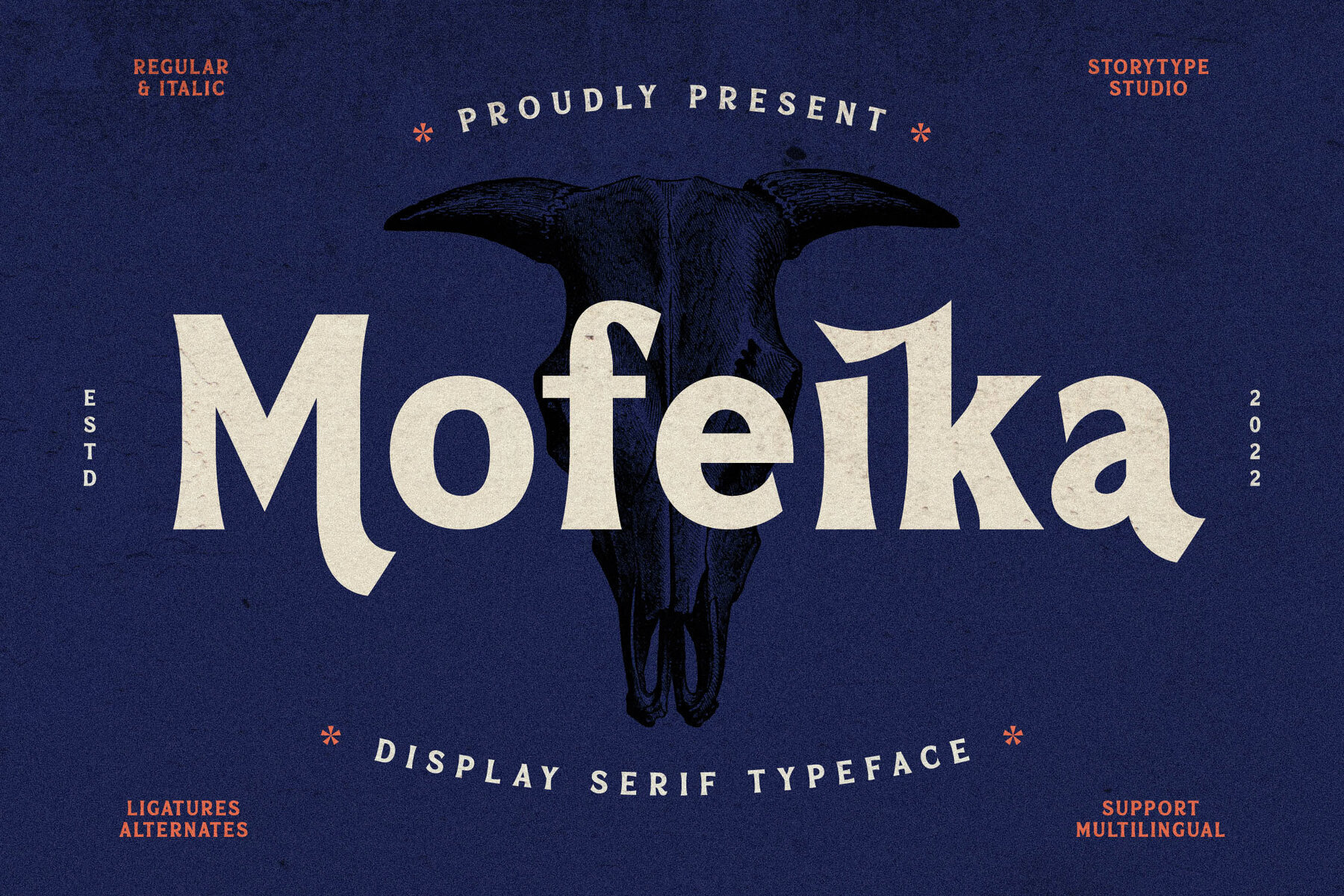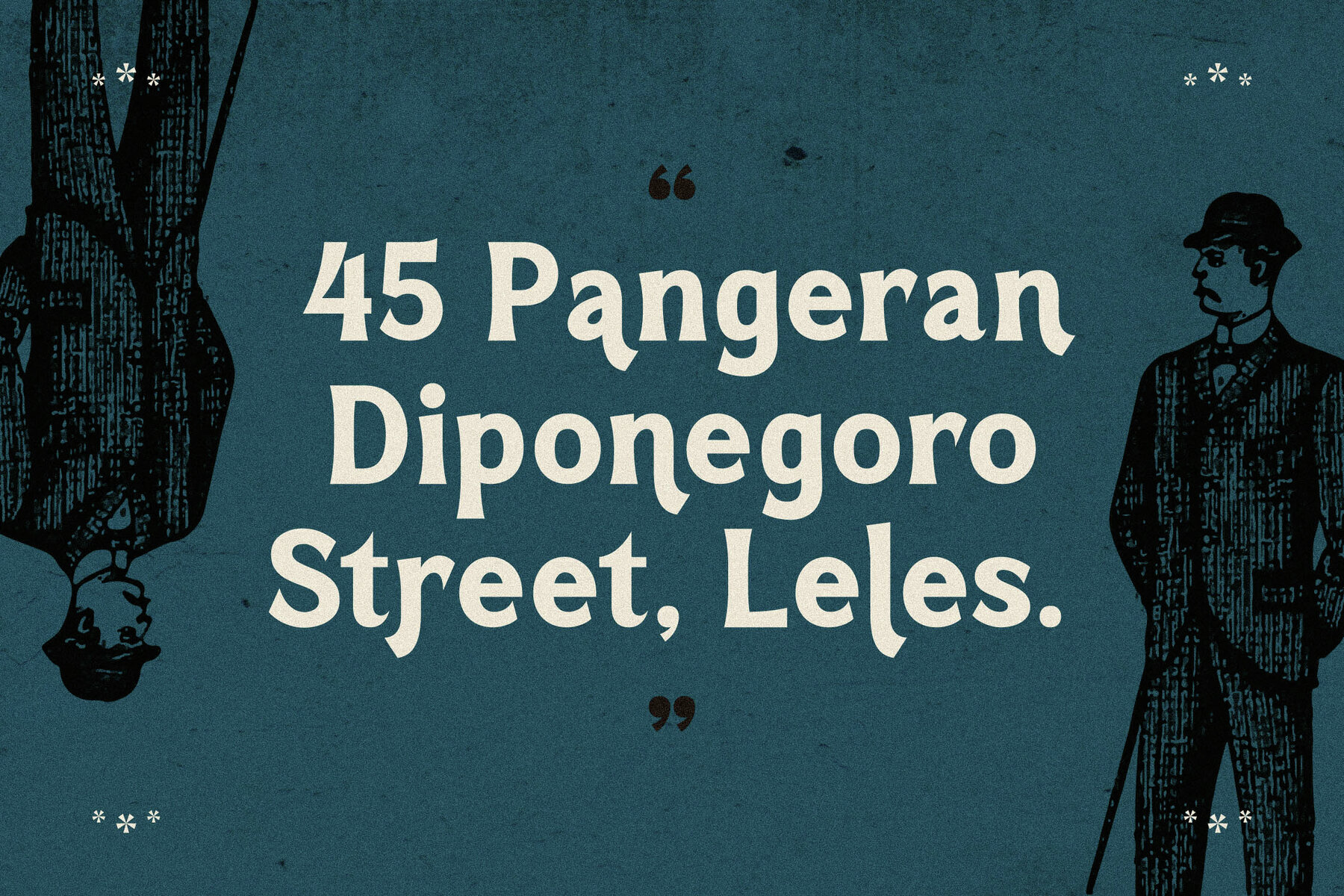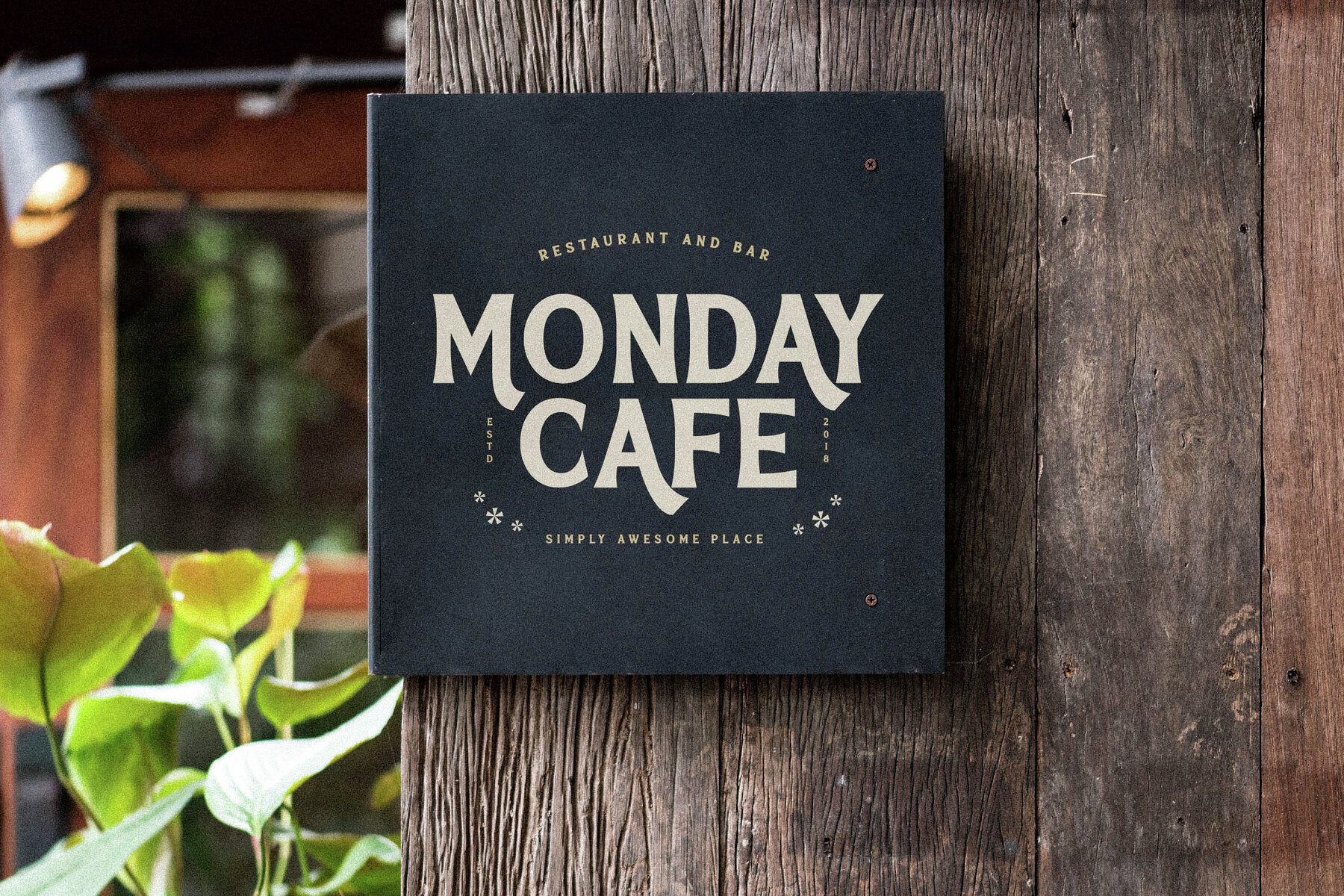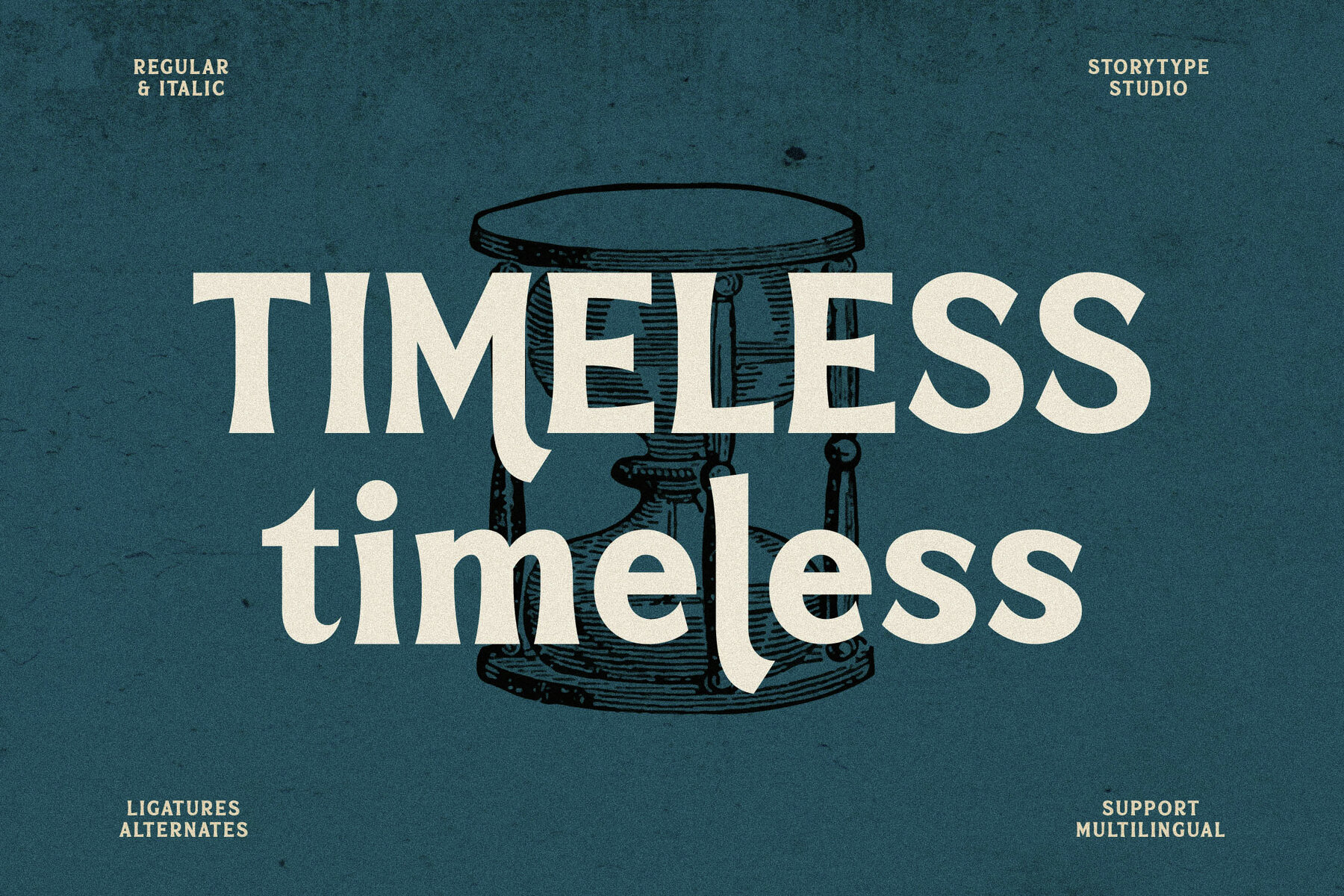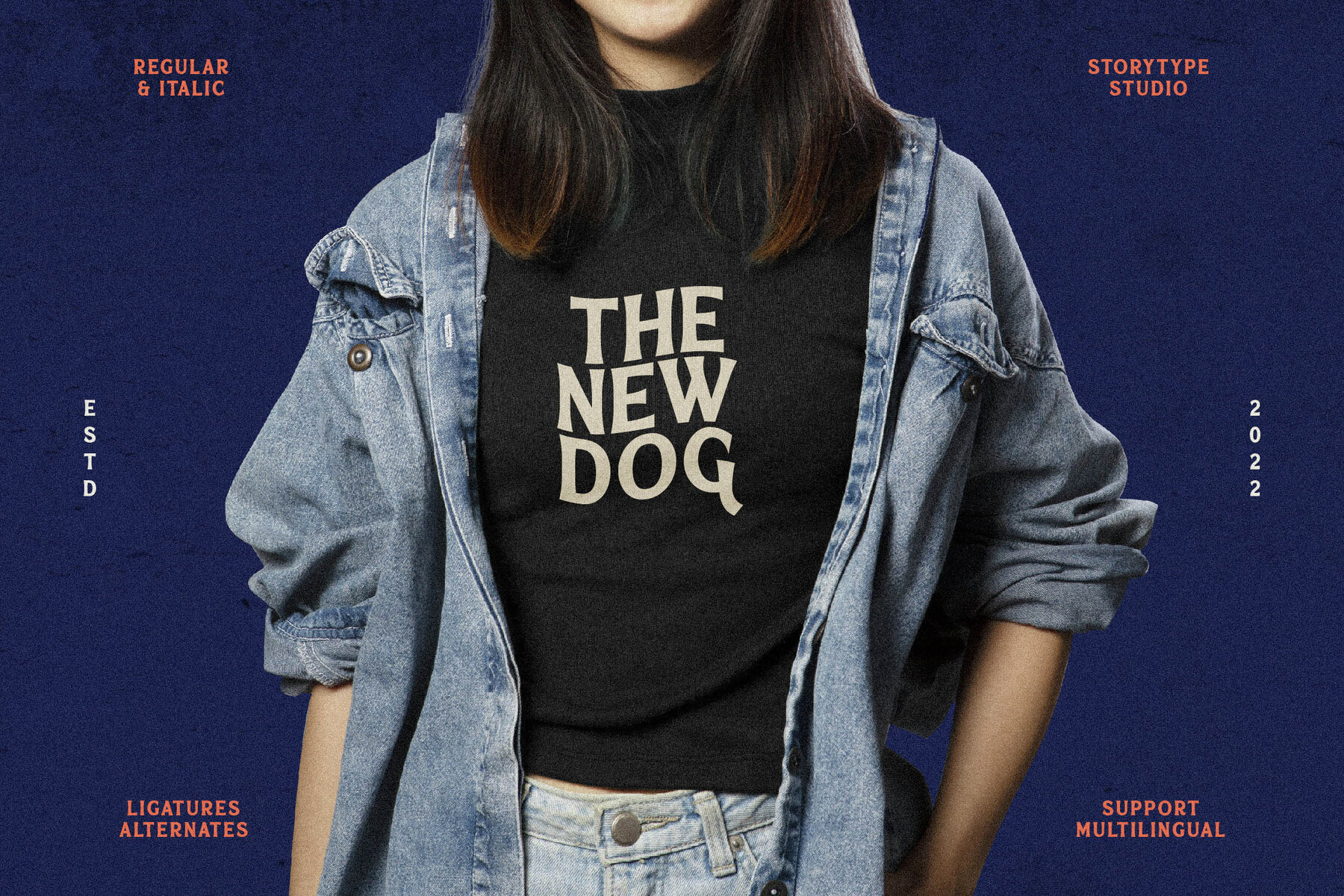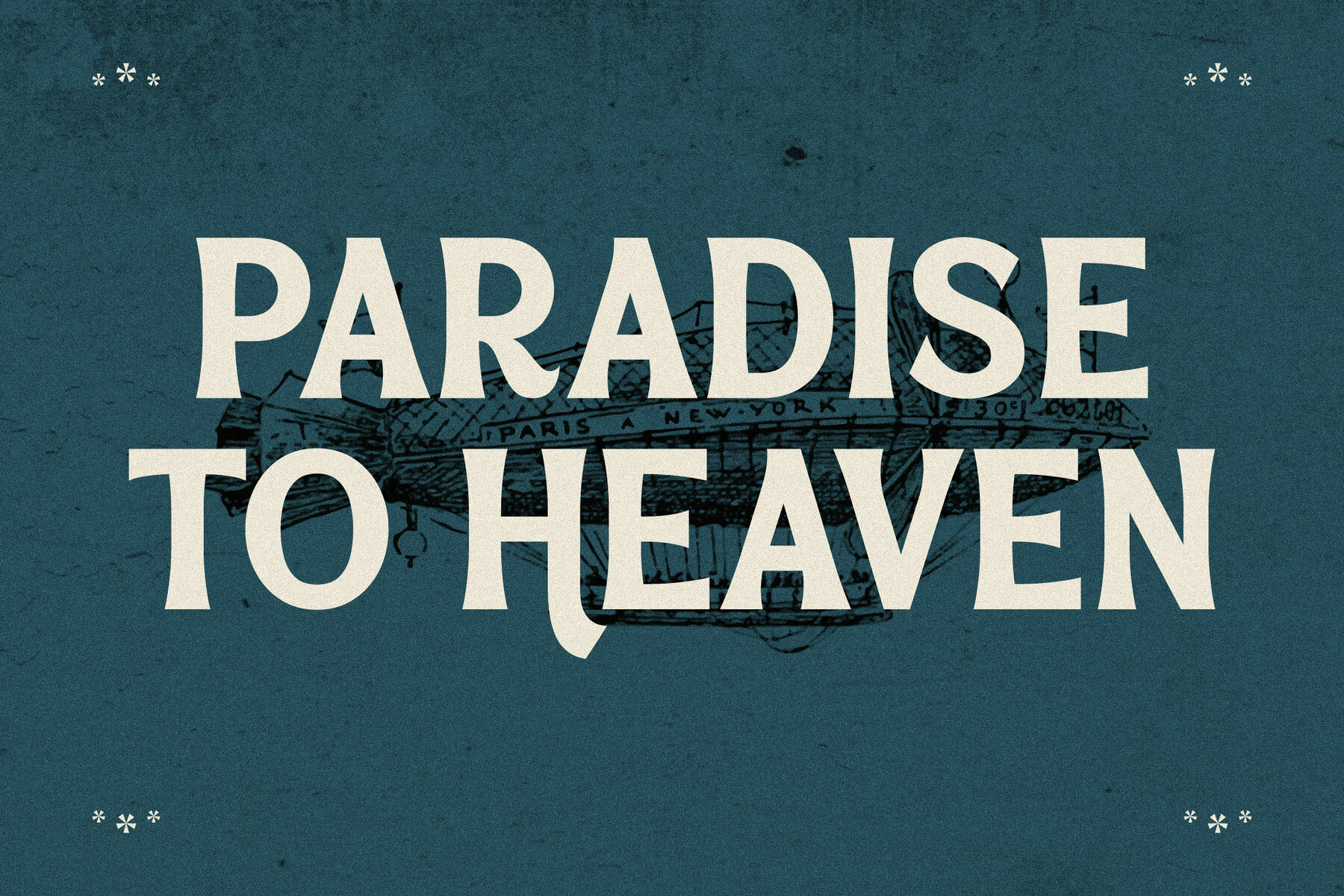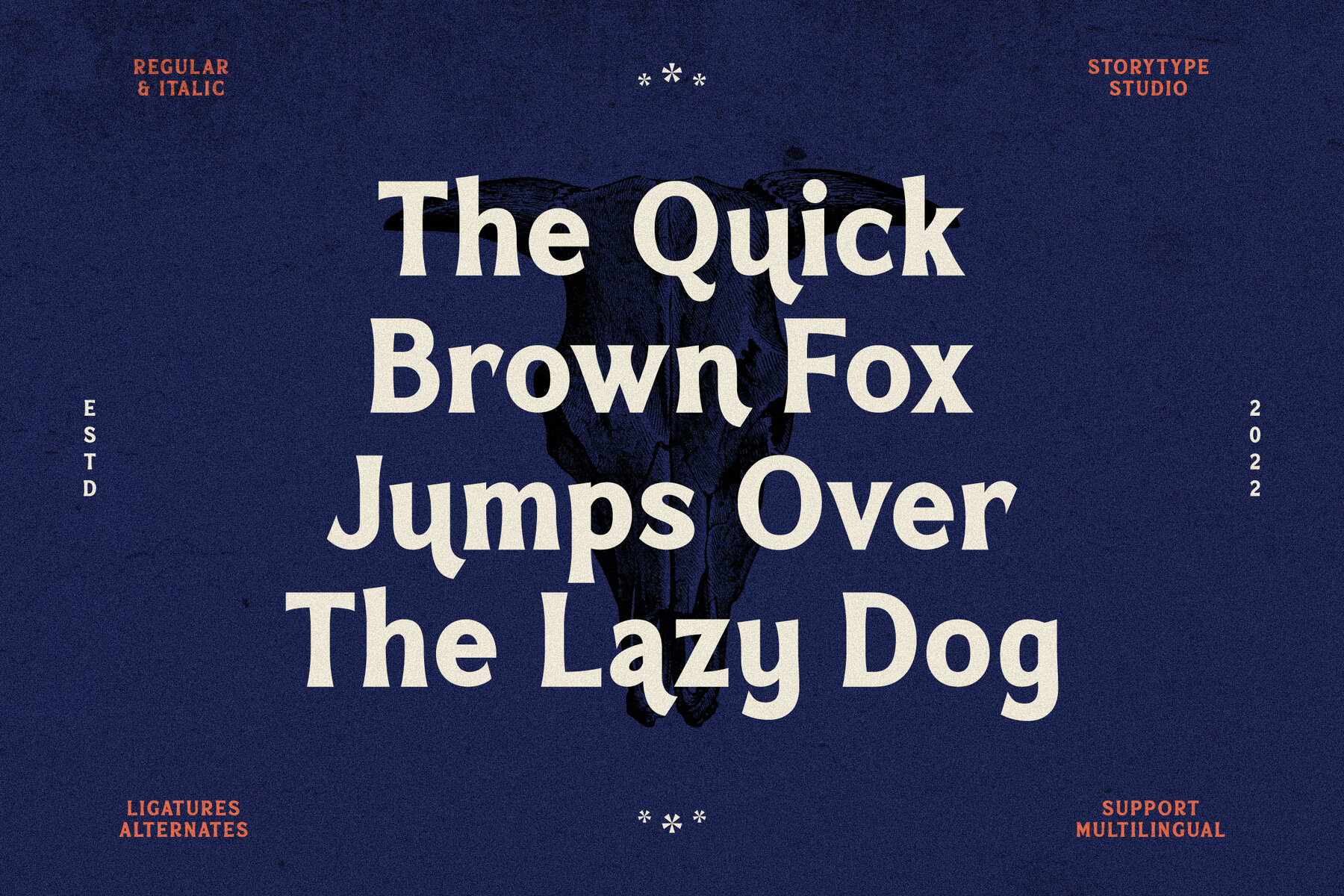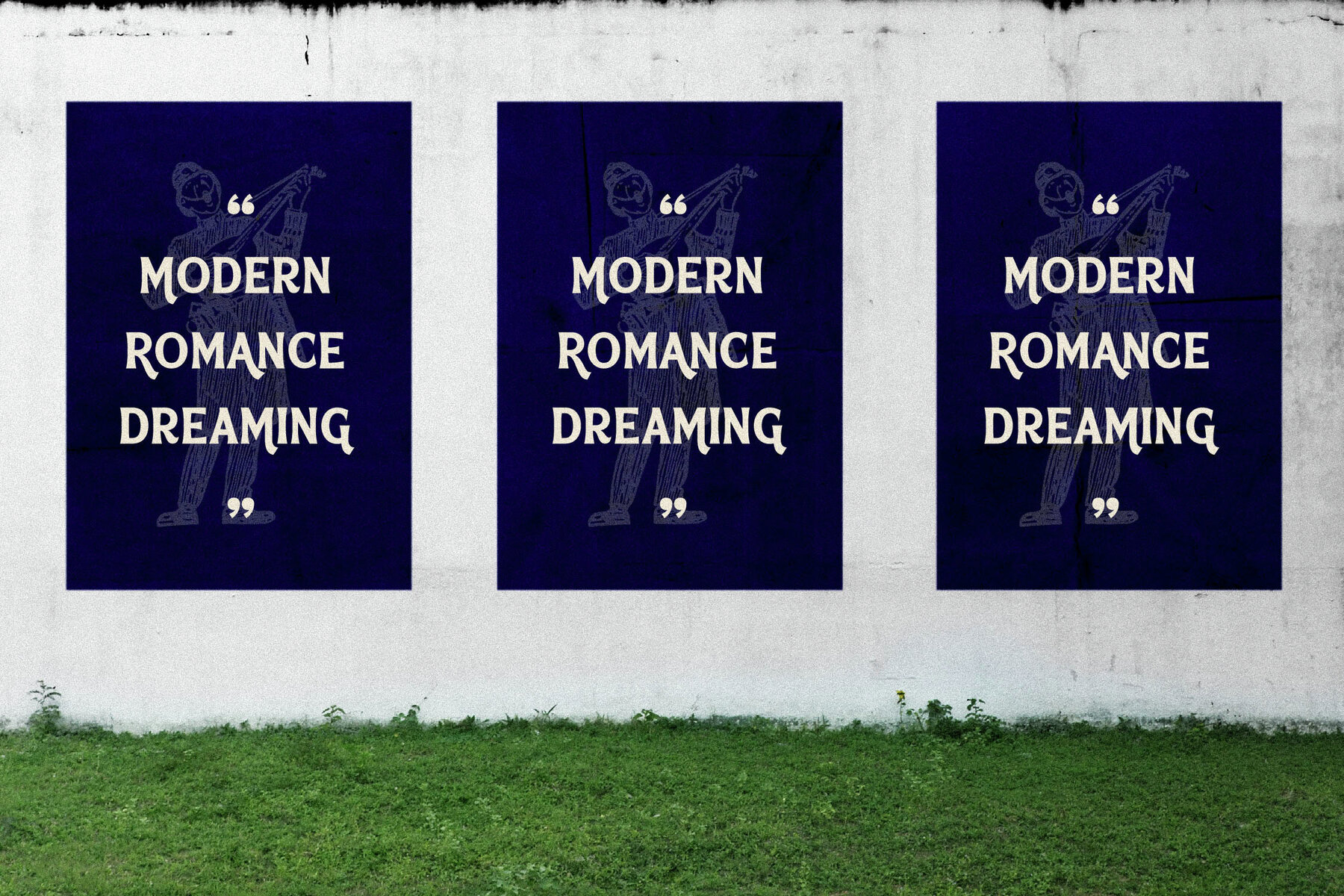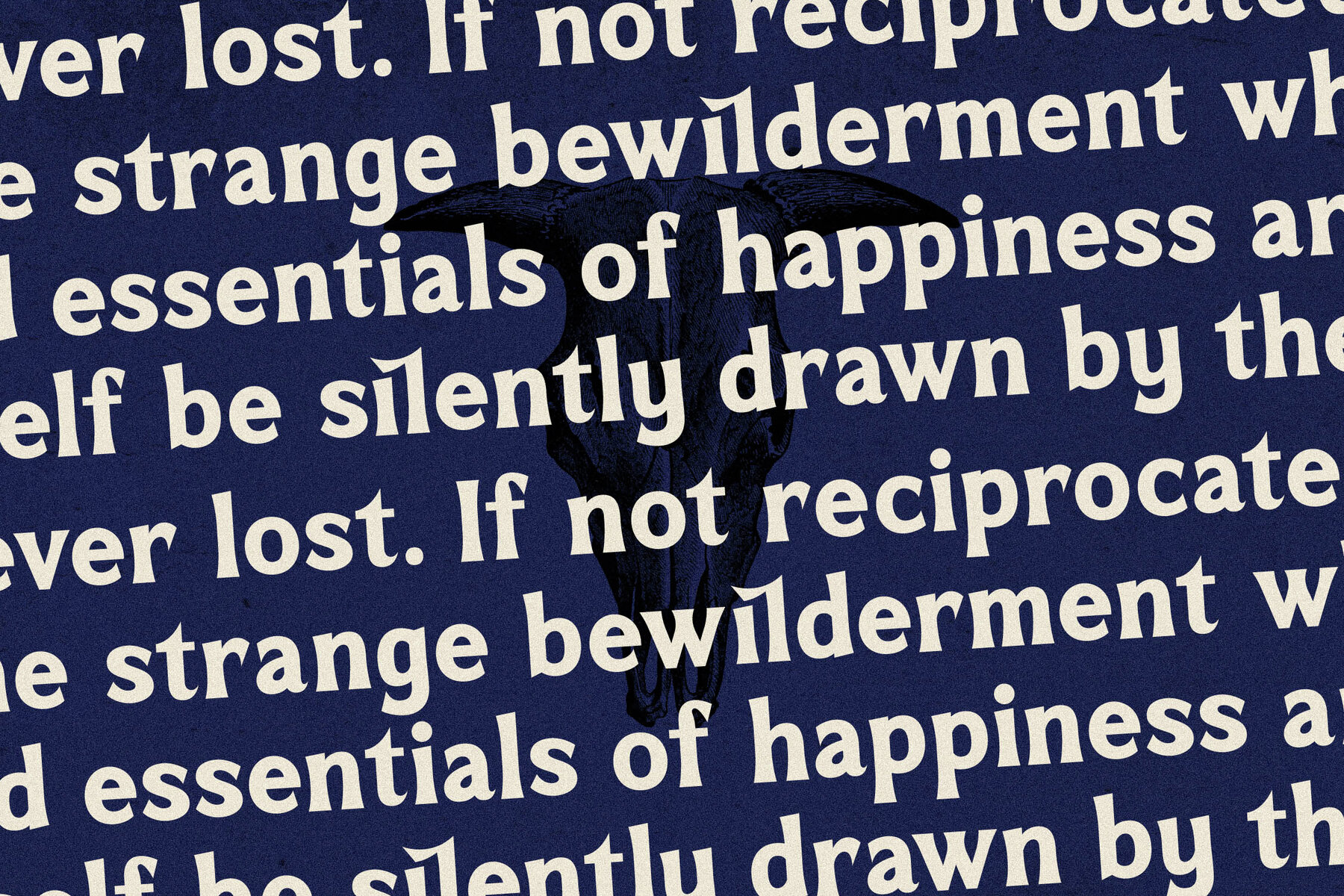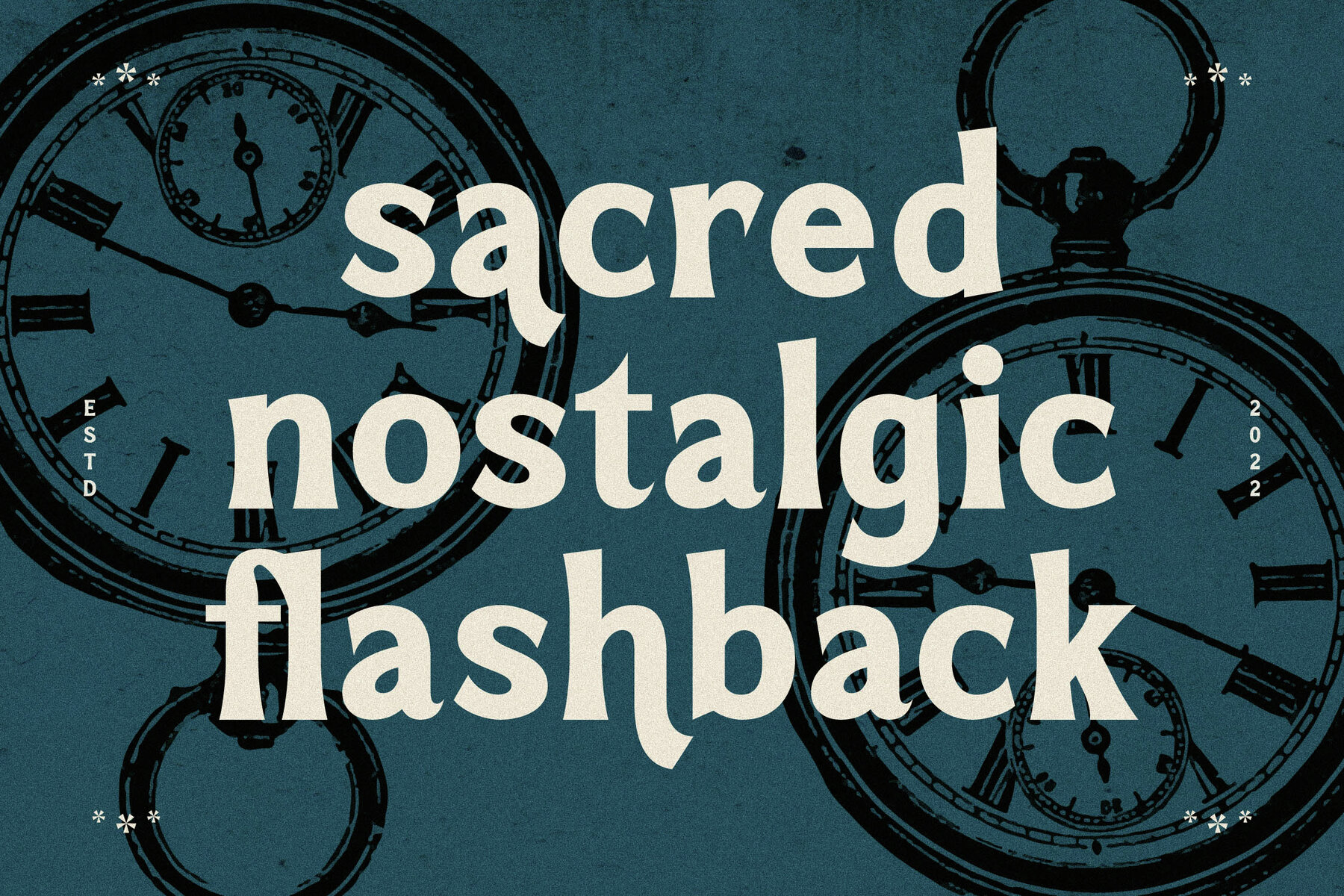
Mofeika Font
Discover the sophisticated allure of Mofeika, a striking serif typeface by Storytype Studio. With its unique style and modern aesthetic, Mofeika is ideal for crafting luxurious logos, captivating book and movie titles, and elegant fashion branding. This typeface effortlessly complements magazine layouts, clothing designs, and exquisite lettering, providing versatility and a touch of class.Mofeika Typeface